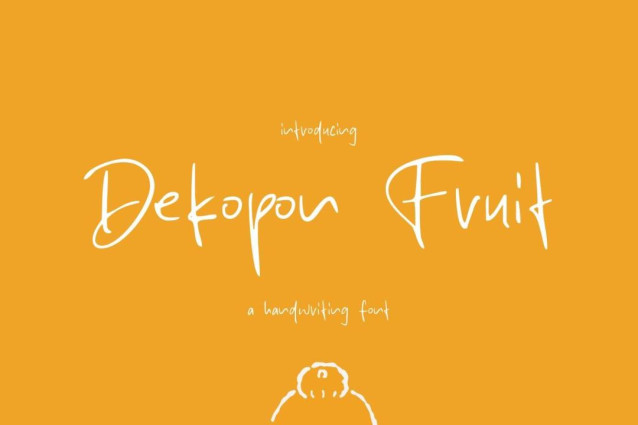
Dekopon Fruit Font
Dekopon Fruit Font is a simple and friendly handwritten font. Its natural and unique style makes it incredibly fitting to a large pool of designs. The only limit is your imagination!